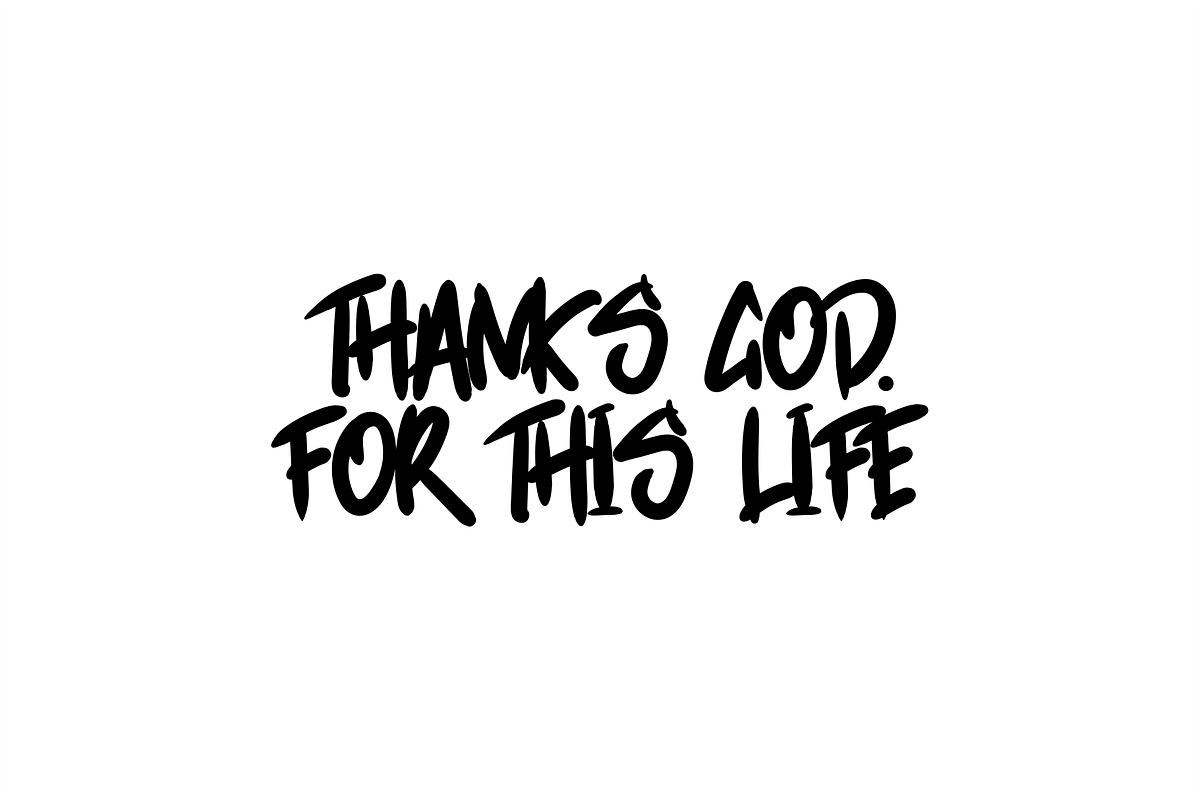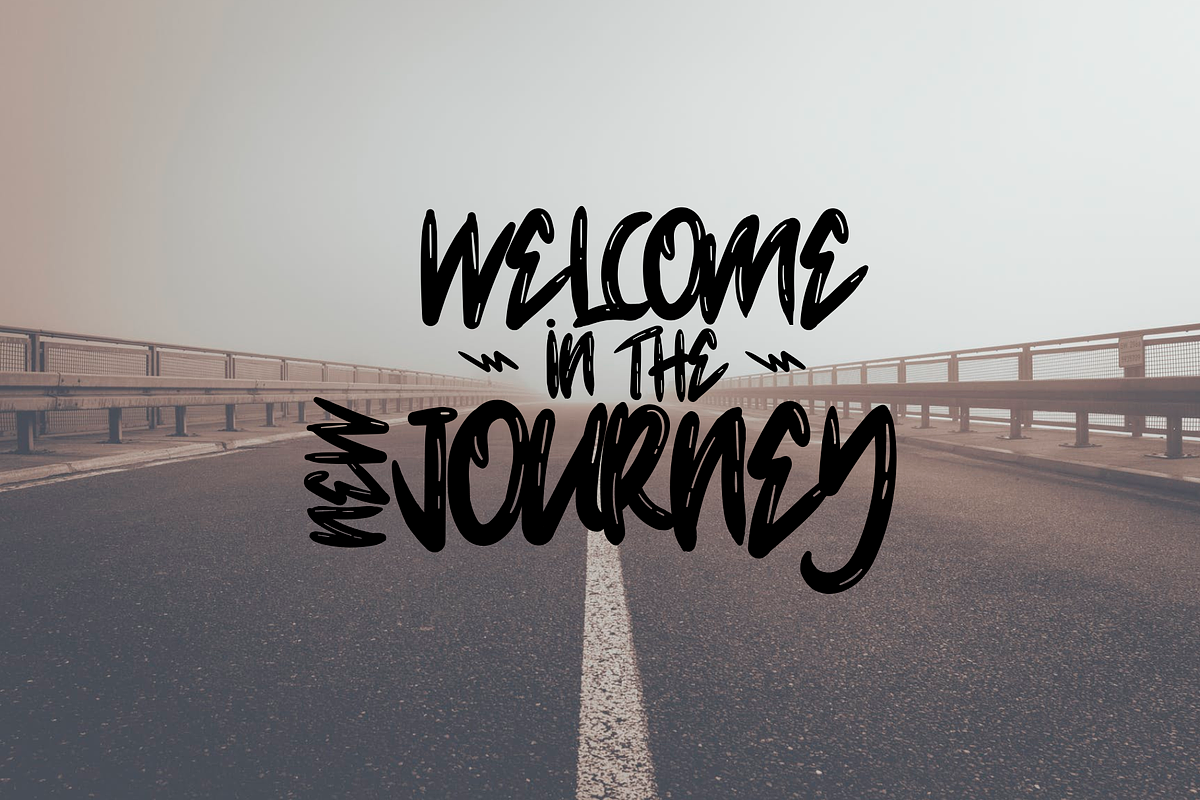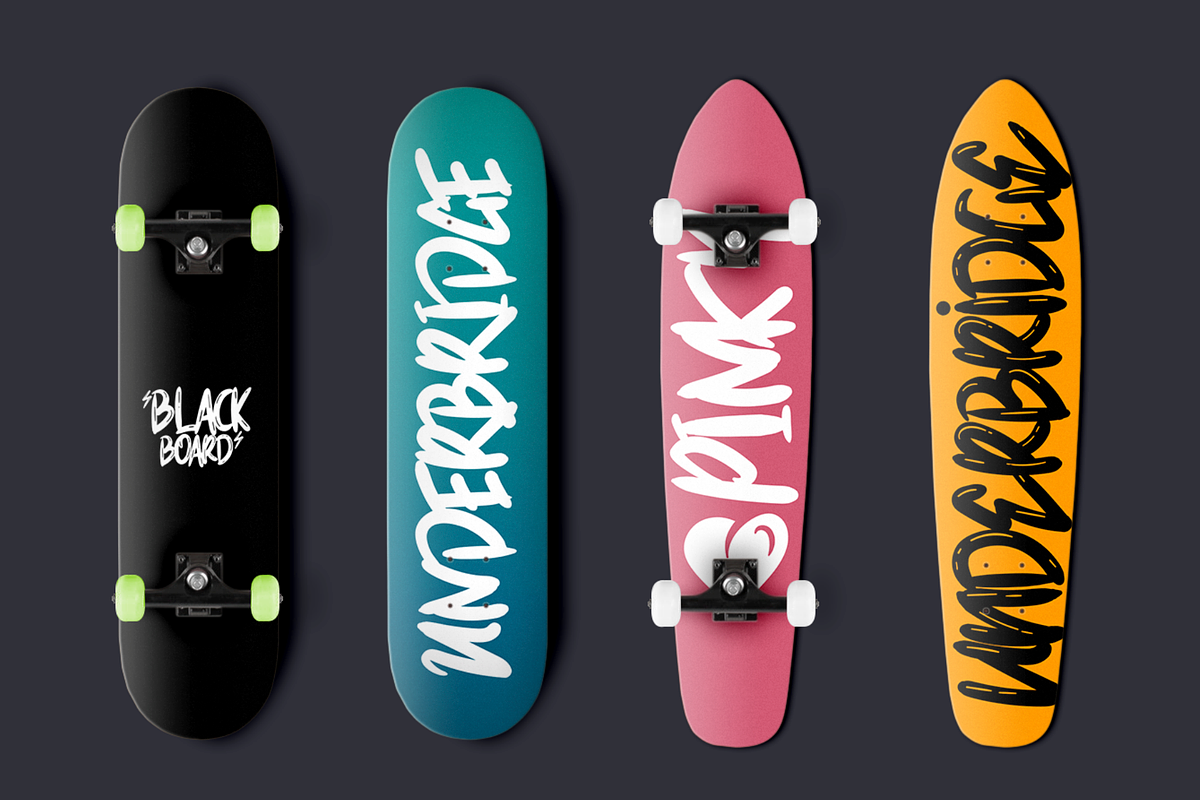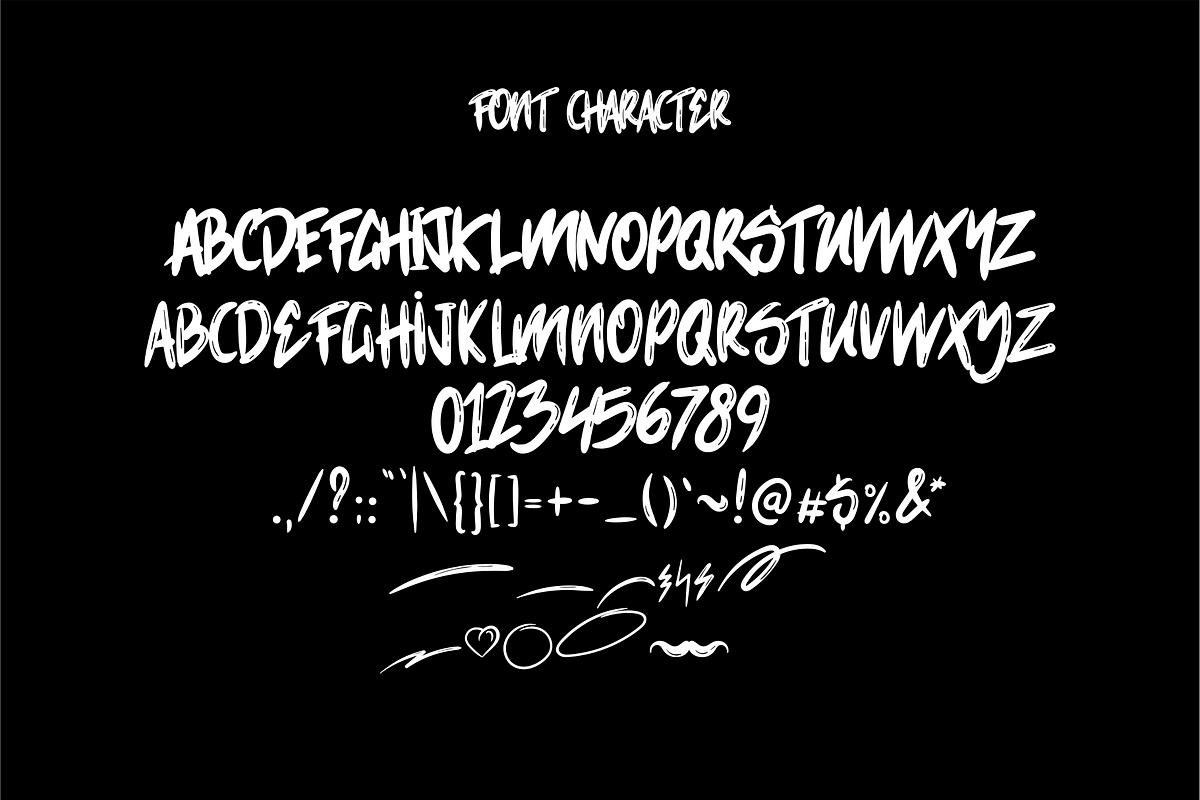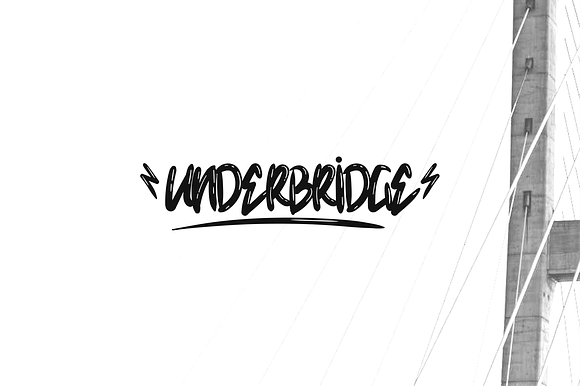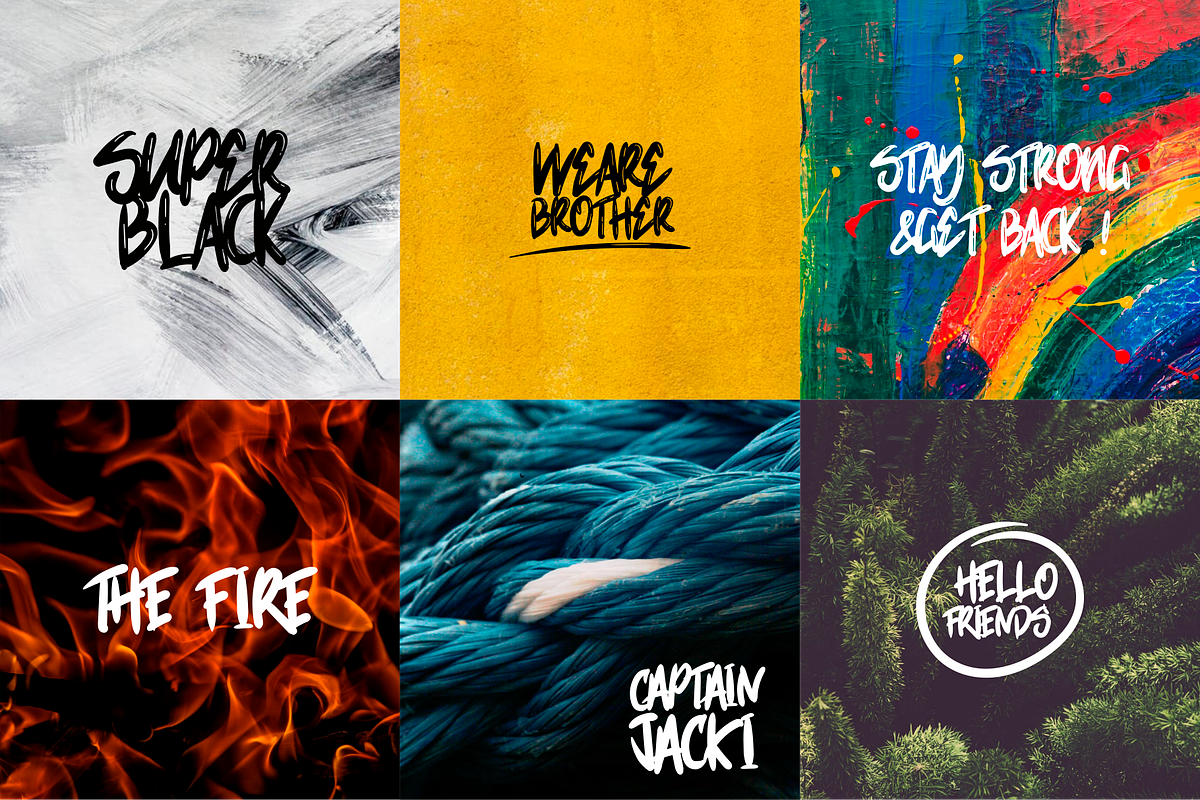
Underbridge Dirty Font
Underbridge is a font with a wild handwriting style that created masculine font harmony, perfect for your male or something associated with high adrenaline. This font was created based on the desire to create something wild, free, and rebellious. This font is suitable printed in any media, such as t-shirts, snapbacks, skateboards or anything that requires a man's touch.